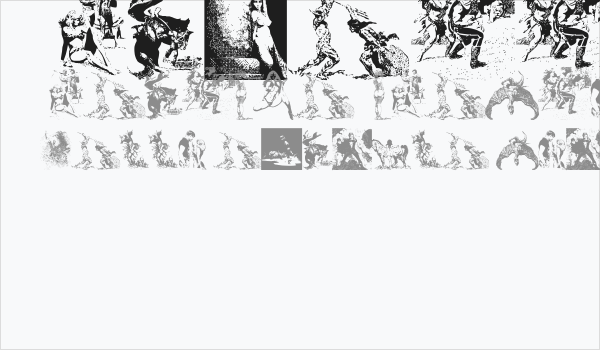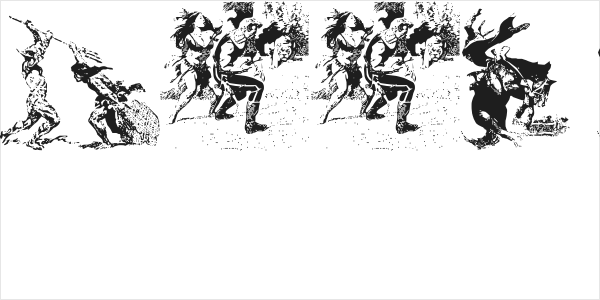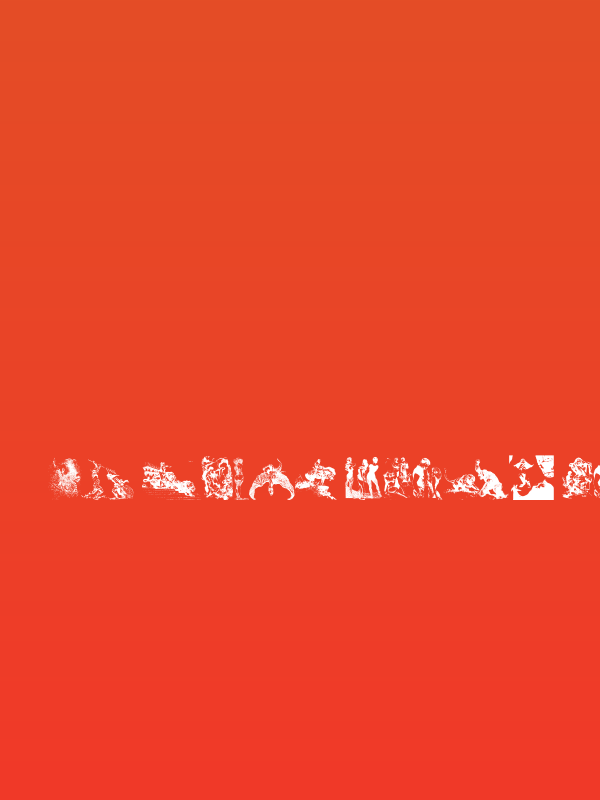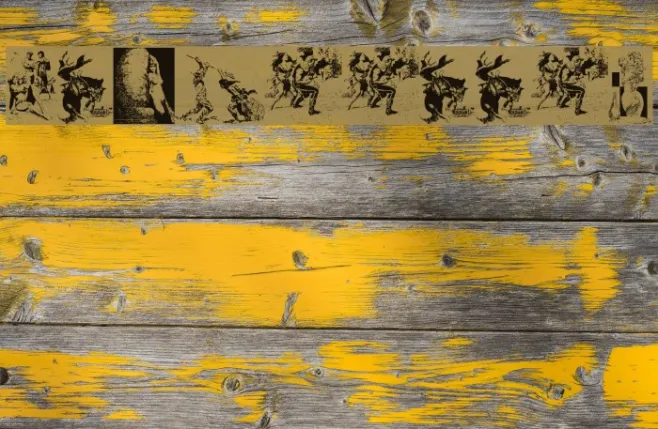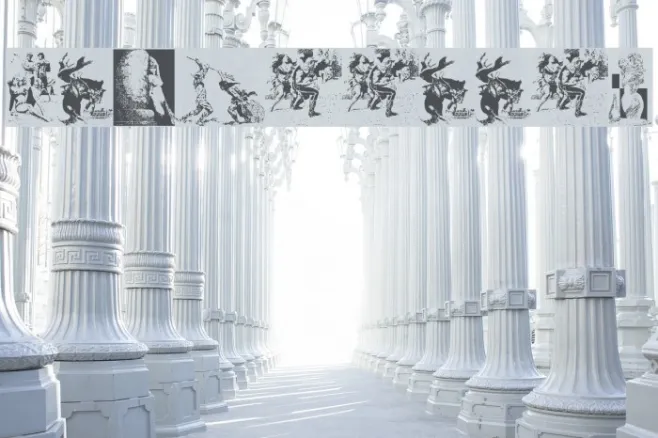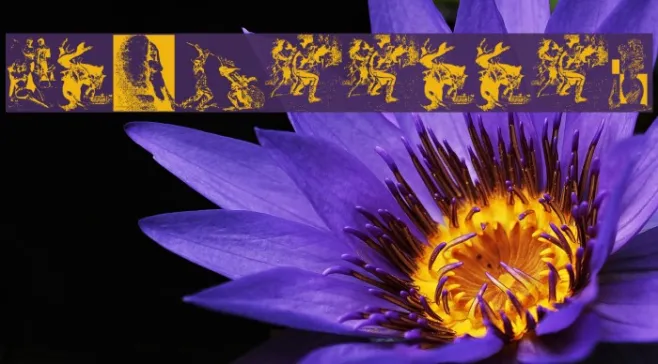
FrazettaBats2 Font
FrazettaBats2 Description
This set consists of highly detailed, black-and-white illustrative glyphs depicting dynamic fantasy and action scenes, reminiscent of classic pulp or comic book art. Each character is represented by a unique scene rather than a traditional letterform, making it more of a pictorial or dingbat collection than a standard font.
| Overall Style | Decorative, Fantasy, Illustrative |
| Use Case | Decorative elements, Themed graphics, Visual storytelling |
| Proposed Projects | Book covers, posters, fantasy game art, decorative borders, themed invitations. |